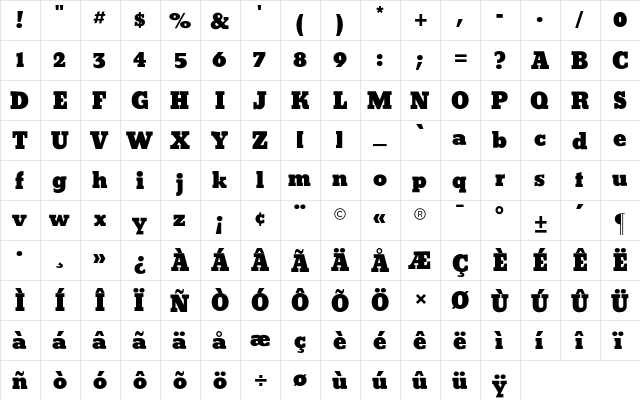
Beton CG ExtraBold Regular Font Preview
Beton CG ExtraBold Regular
Beton CG ExtraBold Regular Font Details
Design Context for Beton CG ExtraBold Typeface
Beton CG ExtraBold is a composed and adaptable typeface that performs quietly and consistently across a wide range of design contexts. The heavy weight commands attention and anchors typographic hierarchies.
Pro Tip: Use Beton CG ExtraBold in both headline and body roles to test its range before committing to a single application.